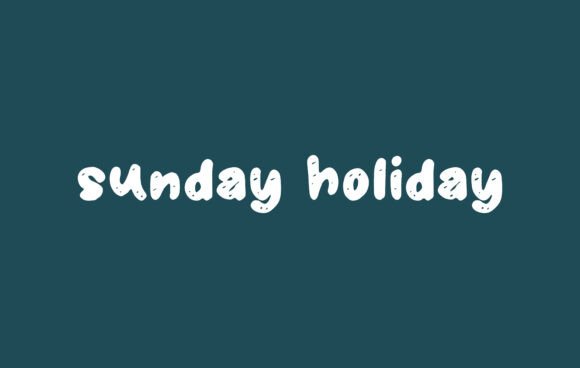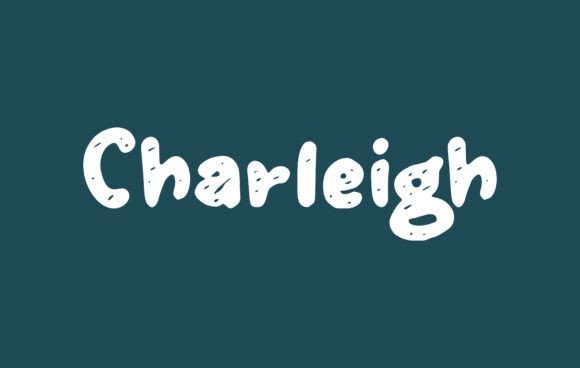
Discover the Magic of Handwritten Style with Charleigh Font
Have you ever sat with a pen and paper, trying to bring your creative vision to life? The scribbles, the strokes, the imperfect lines – it’s in those moments that true character is born. As designers, we’re always on the lookout for the perfect font to capture that essence, to make our work feel more personal and authentic. Enter Charleigh Font, a beautiful handwritten font that embodies the romance and charm of a handwritten note.
Expertly designed to be a true favorite, Charleigh Font is the perfect addition to any design project. With its legible and elegant style, it’s perfect for titles, body text, and even social media posts. Whether you’re creating magazine headlines, branding, wedding invitations, or cards, Charleigh Font is sure to elevate your designs to the next level.
- Unique Characteristics: Charleigh Font features a unique blend of elegant and modern design elements, with intricate details and subtle flair, making it perfect for various design projects, including logos, branding, and packaging.
Charleigh Font Review
I recently had the chance to work with the Charleigh Font, and I’m sharing my honest review of this versatile typeface.
- ✨ Elegant and sophisticated feel: The Charleigh Font exudes refinement and luxury, making it perfect for high-end branding or special occasion materials.
- ✨ Wide range of styles: This font offers a variety of styles, including script, serif, and sans-serif options, giving designers ample choices for their projects.
- ✨ Highly legible: The Charleigh Font is remarkably easy to read, even at smaller font sizes, making it suitable for body text and other large blocks of content.
- ⚠️ Limited language support: Unfortunately, the Charleigh Font does not offer comprehensive language support, which may be a concern for designers working with non-English content.
- ⚠️ Limited font sizes: While the font is highly legible, it may not be the best choice for extremely large or extremely small font sizes, where it may become distorted or difficult to read.
Overall, the Charleigh Font is a solid choice for designers seeking a sophisticated, elegant typeface. While it may have some limitations, its strengths far outweigh its weaknesses, making it a great addition to any designer’s toolkit.
Charleigh Font is ideal for:
- Book covers and publishing materials
For optimal results, use Charleigh Font in conjunction with a high-contrast color scheme and elegant graphics.